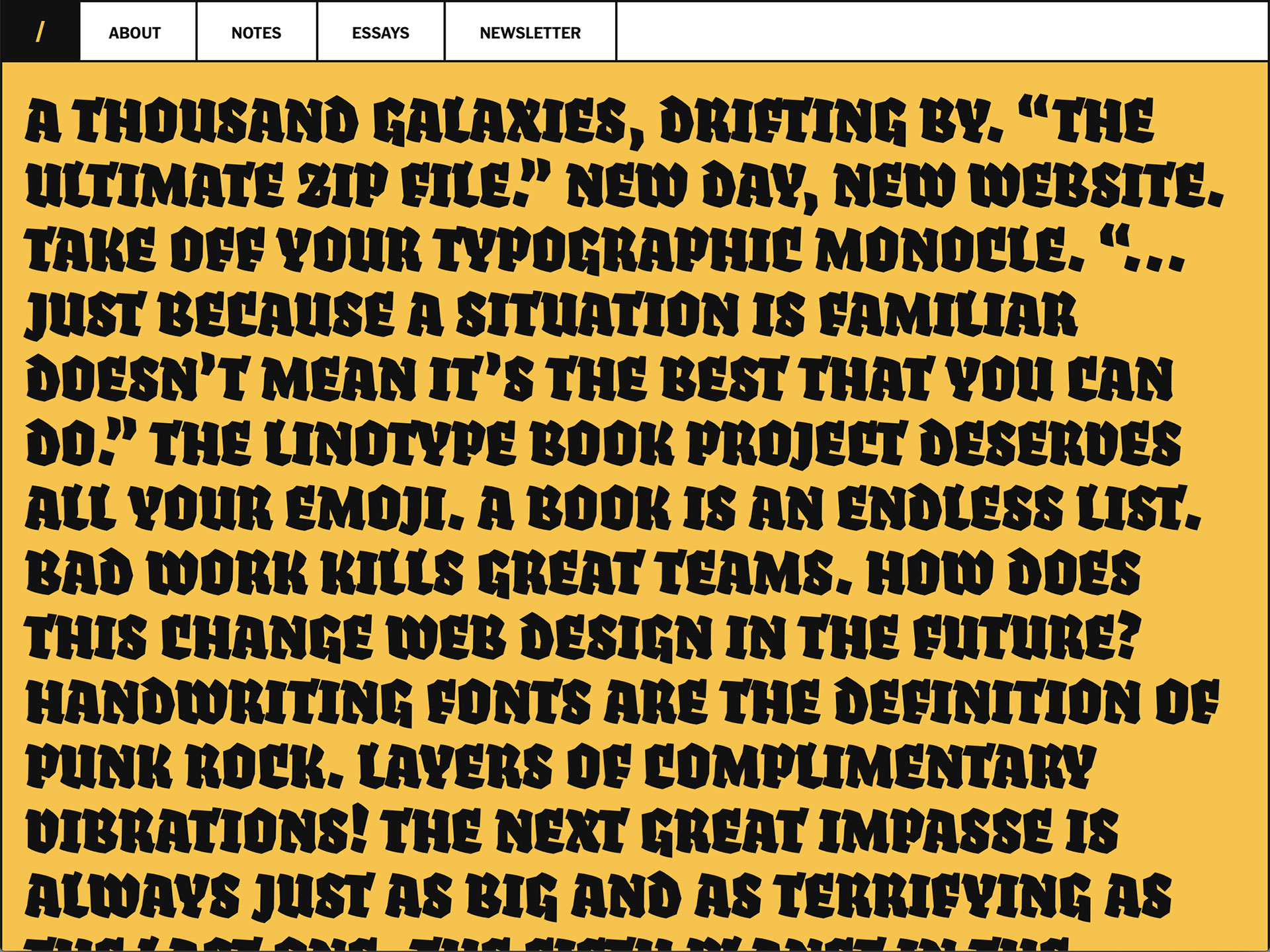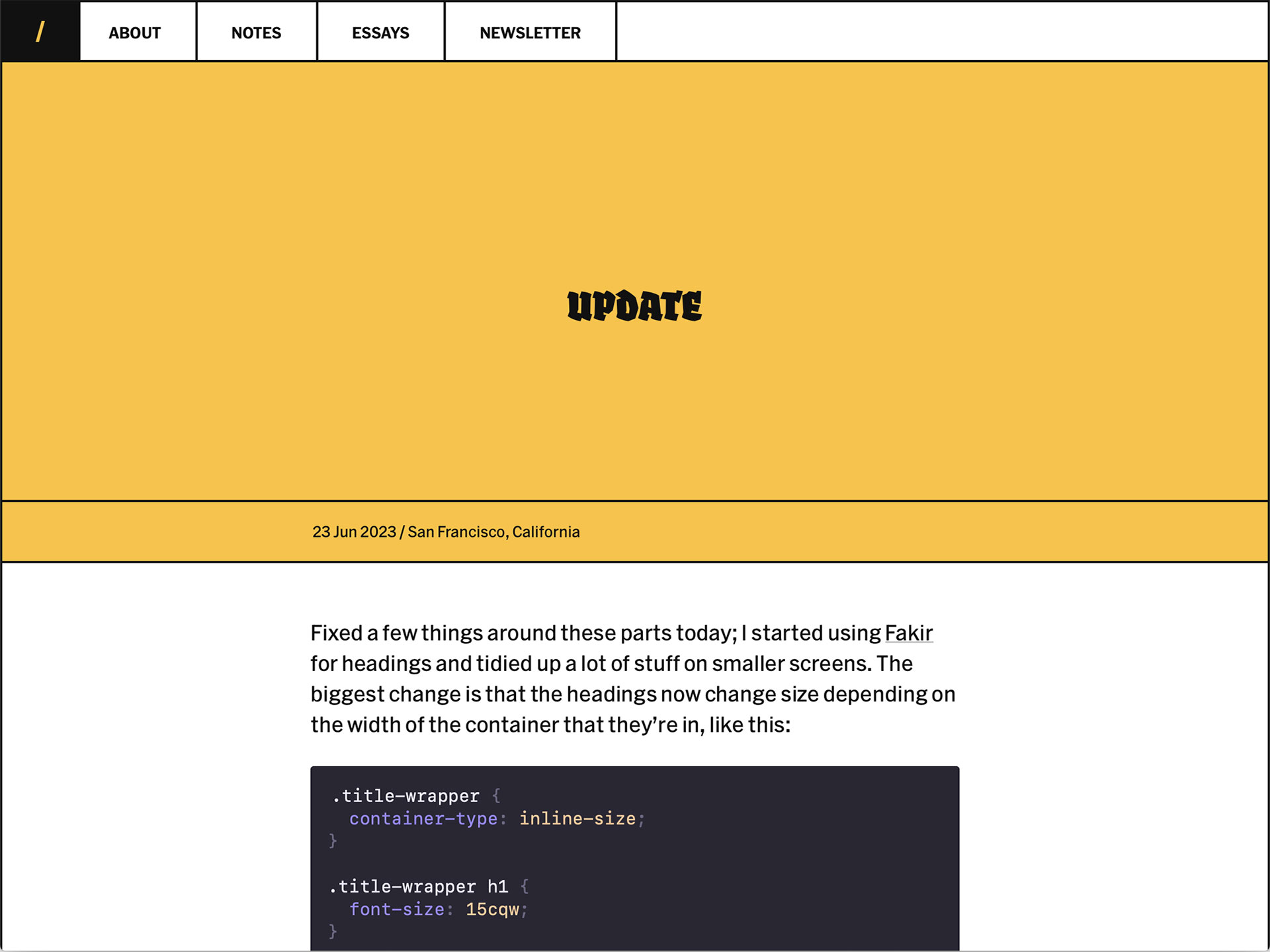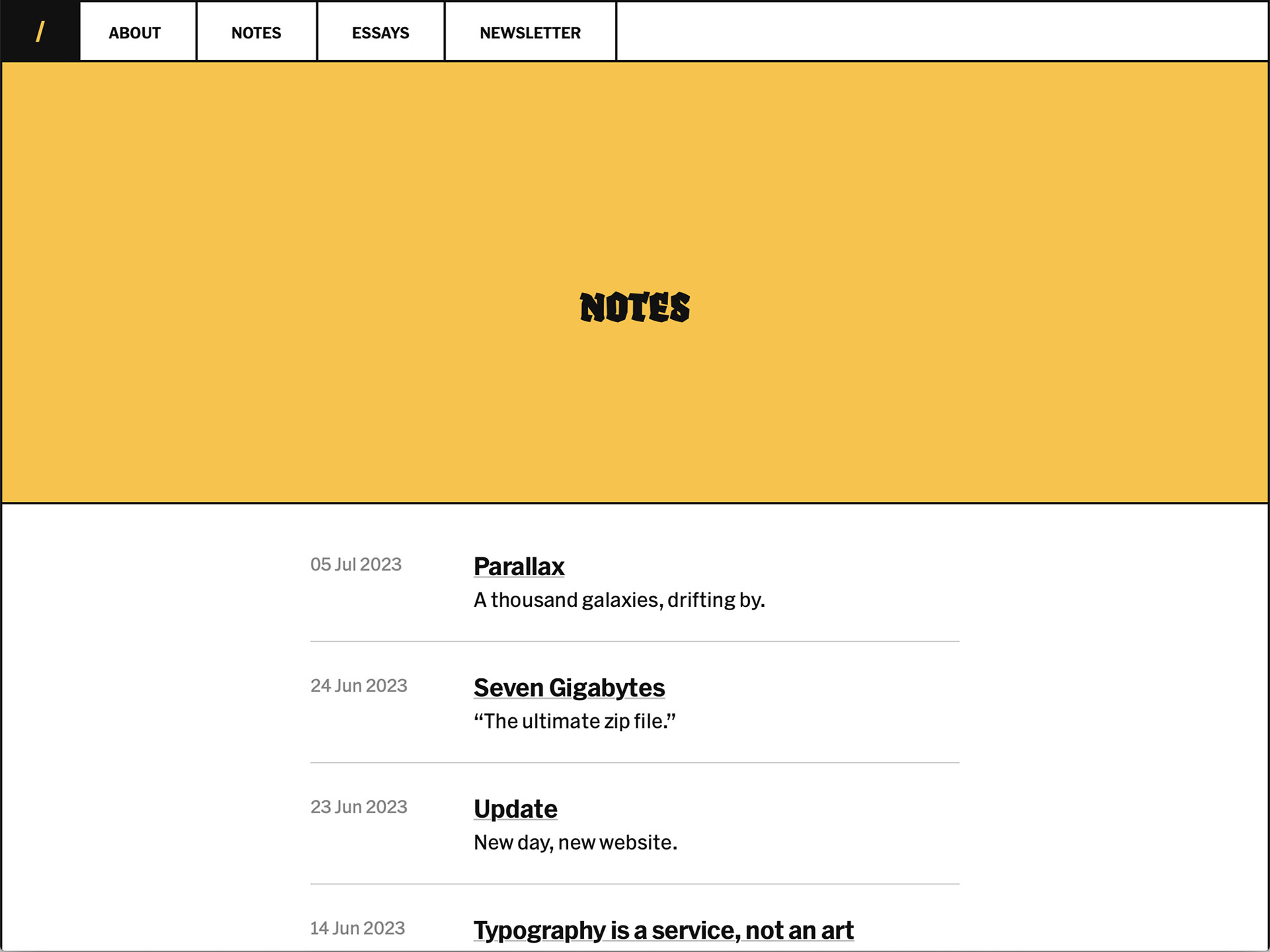
We haven’t seen Fakir Black all caps settings since a long while, but Robin Rendle has the guts to use blackletters in ALL CAPS all over his personal website. We take a bow.
Robin Rendle
Fakir